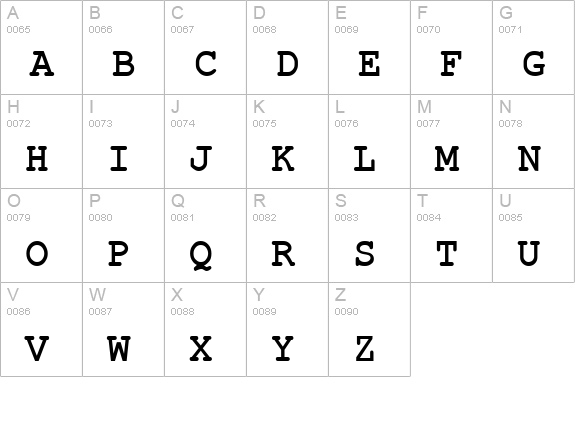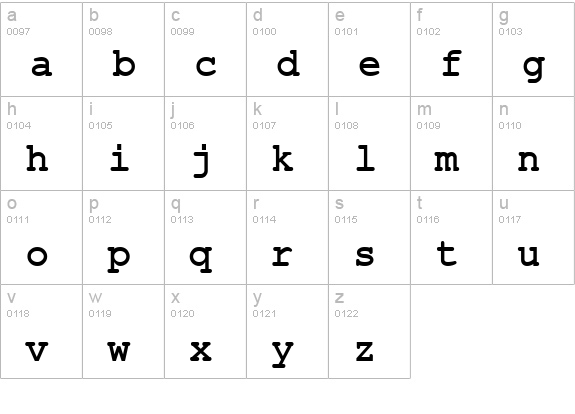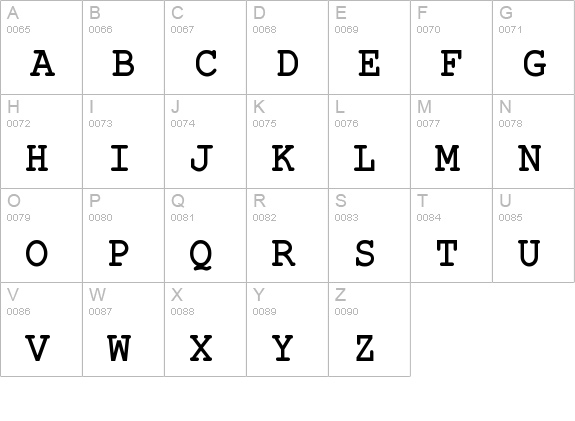
HellasCour Bold Font Details
HellasCour Bold is a strong, high-contrast variant in the HellasCour typeface family \xE2\x80\x94 well suited to headlines, attention-grabbing titles, and strong calls-to-action.
HellasCour Bold is a striking and powerful font that is sure to make a statement in any design project. Its bold and confident letterforms exude a sense of strength and authority, making it the perfect choice for headlines, titles, and logos. With its clean lines and sharp edges, HellasCour Bold demands attention and adds a touch of sophistication to any design. Whether you're looking to create impactful posters, eye-catching banners, or professional-looking presentations, this font is sure to impress. What sets HellasCour Bold apart is not only its stunning design, but also its accessibility. This font is freely available to download at FontsMarket.com, making it easy for designers of all levels to add a touch of elegance and professionalism to their projects. Whether you're a seasoned designer or just starting out, HellasCour Bold is a versatile and reliable font that will elevate your designs to new heights. Its bold and commanding presence will ensure that your message is delivered with impact and style. So why wait? Download HellasCour Bold today and unleash your creativity with this remarkable font. With its free availability at FontsMarket.com, there's no reason not to add this powerful and captivating font to your design arsenal.